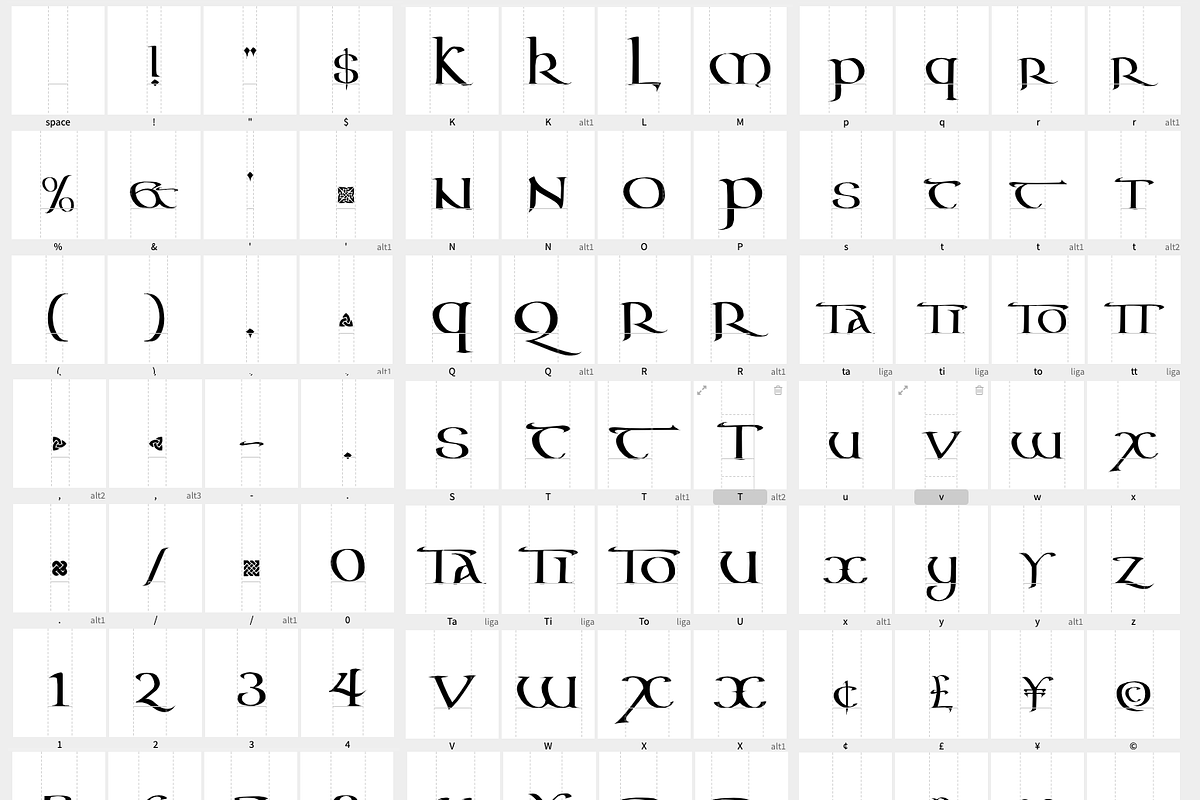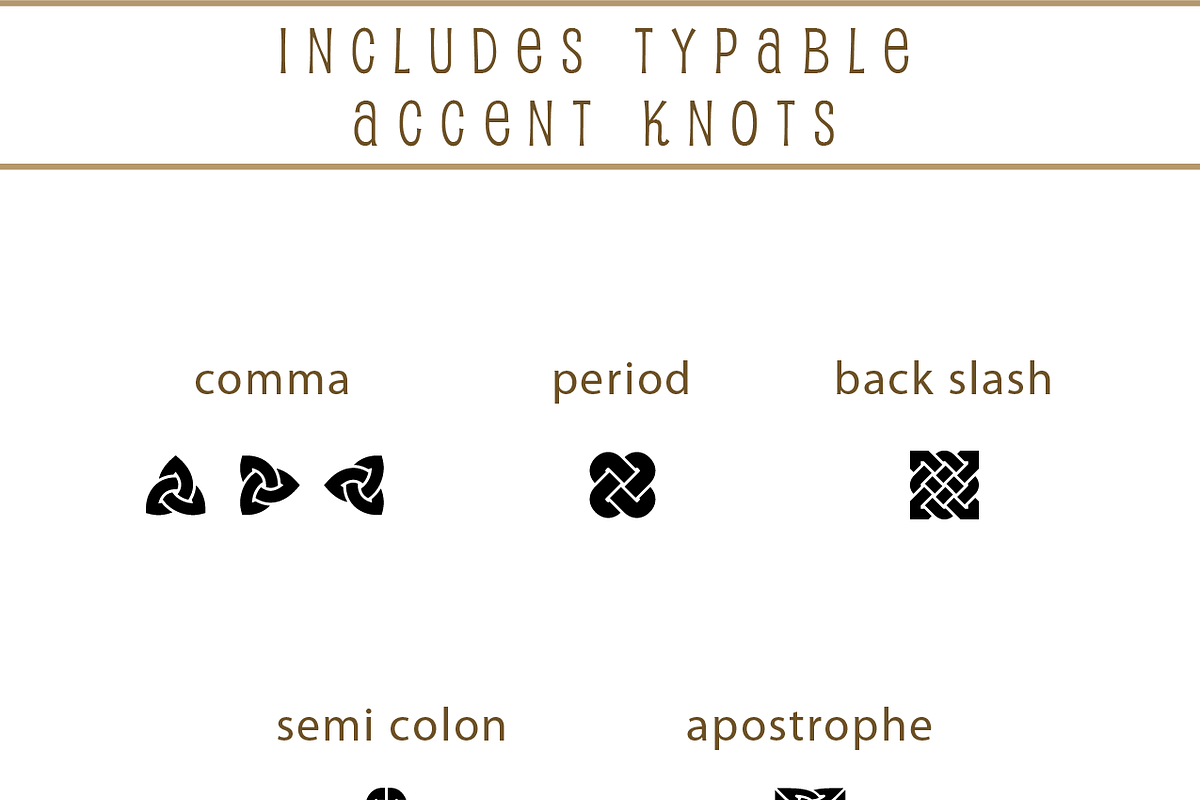
Celtic is a great font based on Celtic manuscripts like the Book of Kells or Lindisfarne Gospels, with modernized variants provided for readability. Includes alternate and/or extended letters for A, K, R, T, N and Z, as well as custom ligatures, numbers and common punctuation. I’ve also included some little Celtic knot dingbats for you to use in your projects – just type to add! Perfect for creating personal stationary, monograms, invitations and using in craft projects!